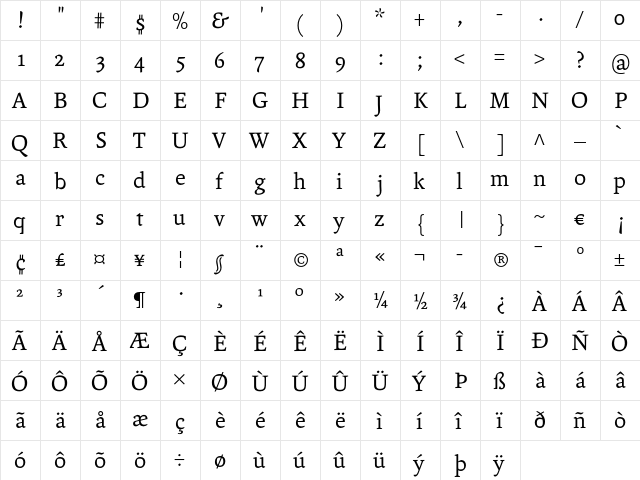
Andralis ND OsF Regular
Design Context for Andralis ND OsF Typeface
Andralis ND OsF is a composed and adaptable typeface that performs quietly and consistently across a wide range of design contexts.